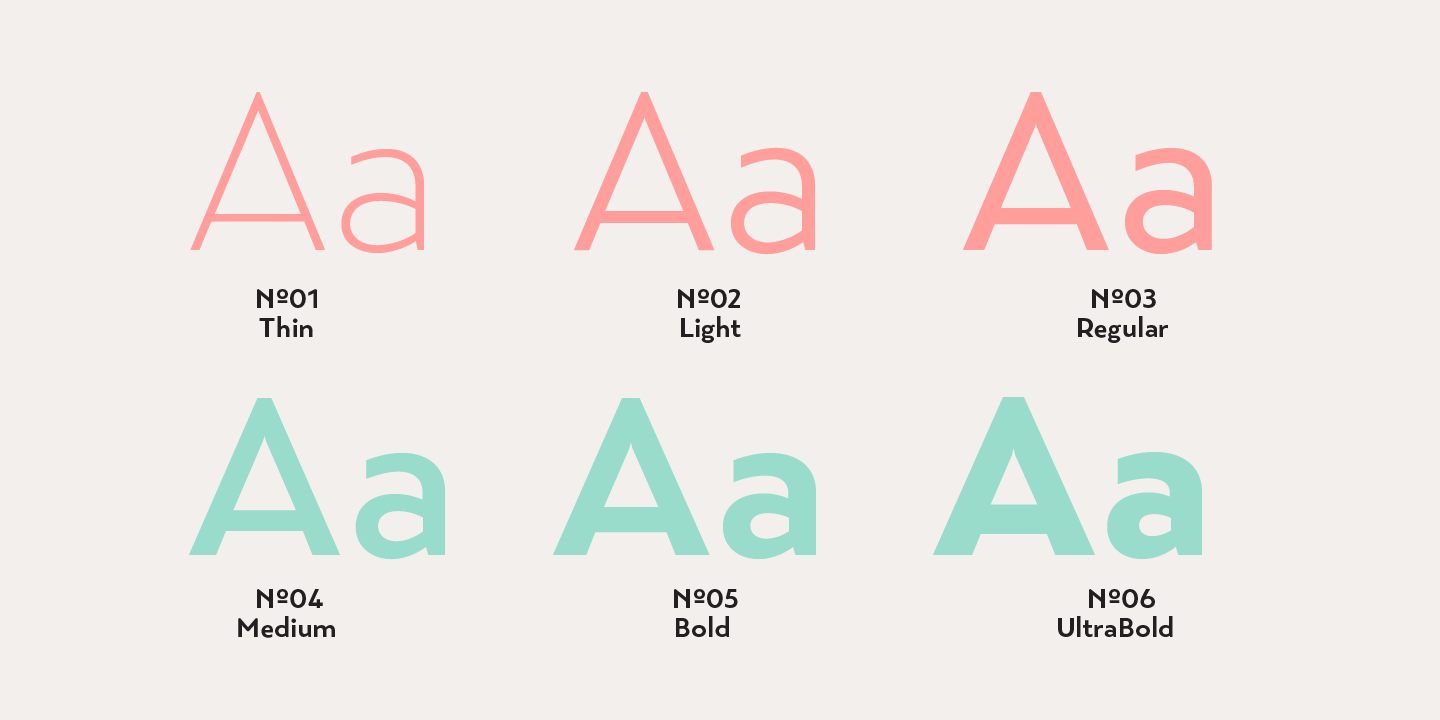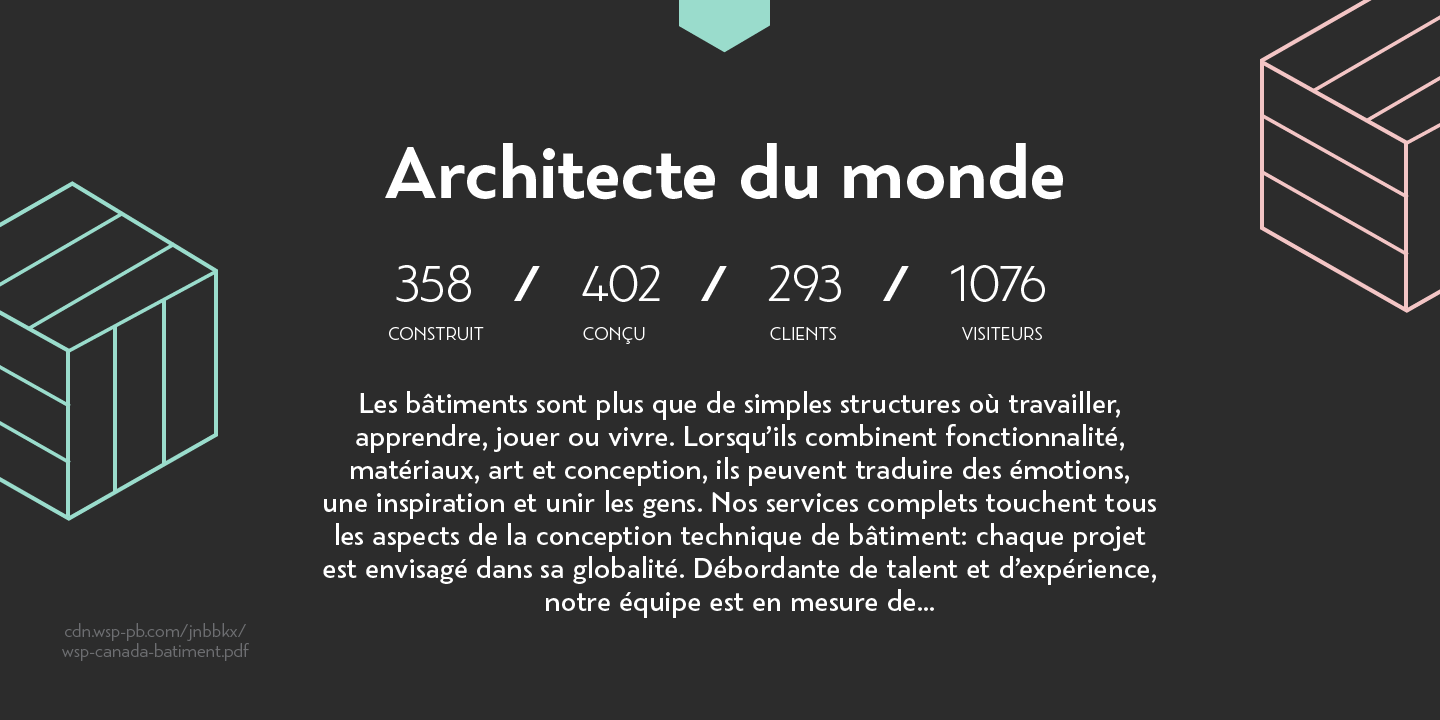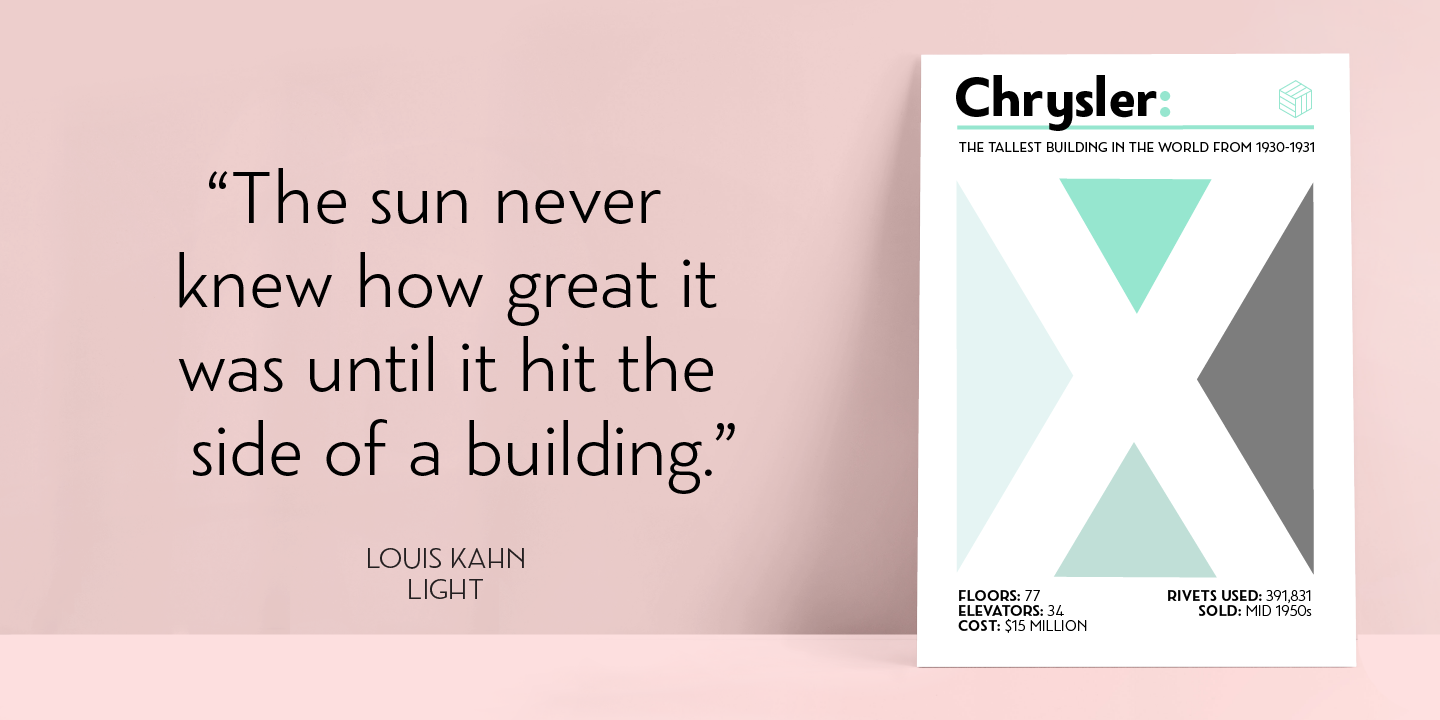
Geometric typefaces are widely used across display advertisements, branding and signage, my aim for my latest typeface Rosina was to create a typeface ideal in these scenarios without the need for further manipulation. I wanted to create something that stands out and becomes a real crowd pleaser all on its own!
Rosina has taken geometric forms and transformed them into a sturdy typeface, with optical adjustments to get a refined look. The initial inspiration came from a lot of the hand drawn typefaces I saw across social media, but it soon developed into a style that regardless of national origin is noticeable as Art Deco with a look that embodies the future.
I took the typeface down a root influenced by the confidence, vigour and optimism of Art Deco architecture apparent in the Roaring Twenties. I strived to simulate the period style through the use of tall ascenders and descenders, giving it a very vertical appearance, much like the Art Deco buildings. The Chrysler Building is a classic example of this essence.
To make Rosina more versatile, form always follows function; it has a lot 21st Century sensibility (not quite as crazy as some of the Art Deco typefaces out there!) Another thing to note is that a lot of typefaces that are influenced by this period style are uppercase only, Rosina has both – a lovely set of lowercase and uppercase that compliment each other wonderfully.
Rosina explores typographic boundaries with its playful appearance (but when you know the rules you are able to break them!)
Full details include 6 weights from Thin to UltraBold and includes a range of OpenType features such as case sensitive punctuation.